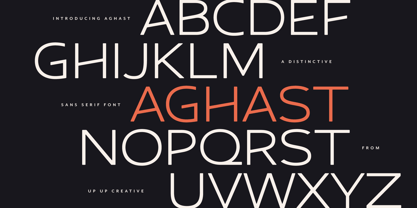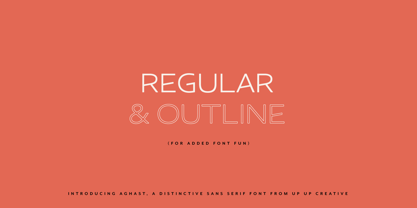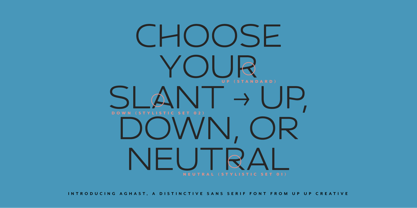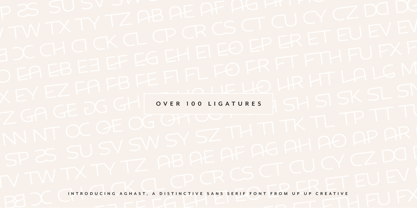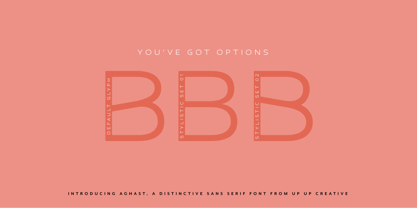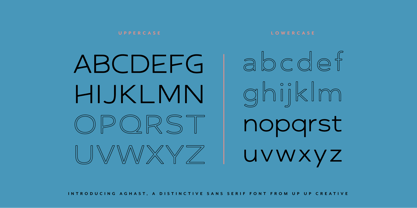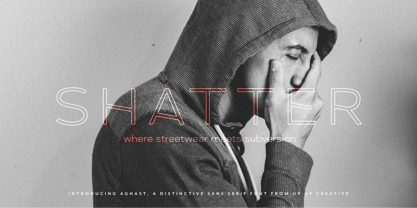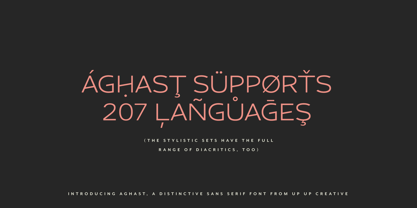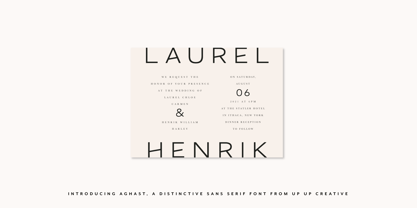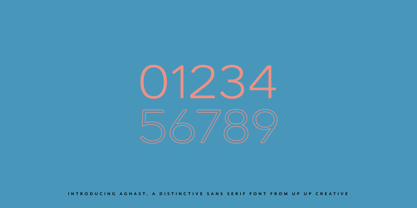
Aghast
by Up Up Creative
Aghast is a sans serif that balances minimalism with a distinctive personality, offering over 700 glyphs and more than 100 ligatures. Its three stylistic sets—slanting up, neutral, and slanting down—let you control the rhythm and feel of your typography. Available in both regular and outline styles, Aghast is a versatile choice for editorial design, branding, logos, marketing, publishing, book covers, and even modern wedding and stationery design.